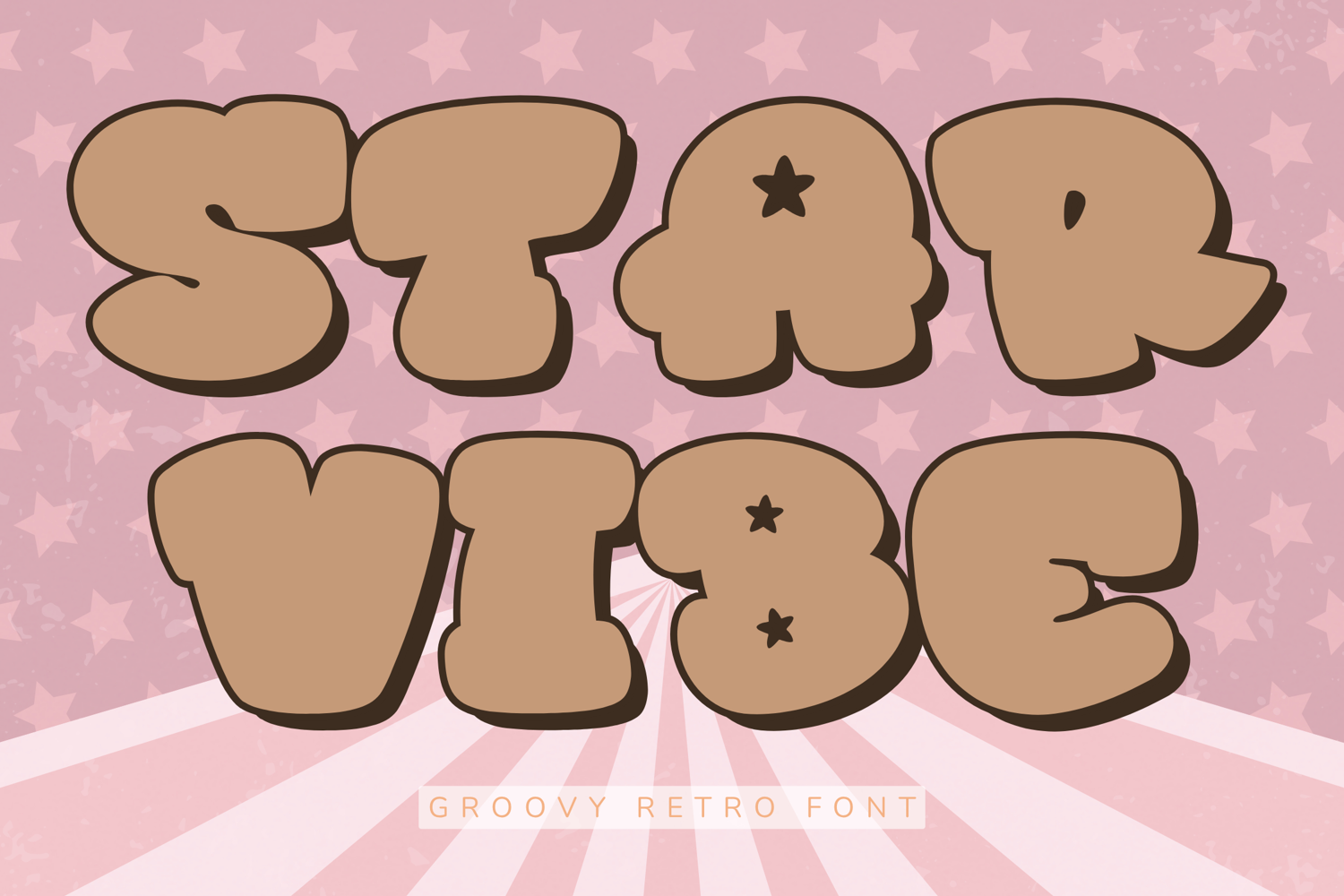
Star Vibe - Groovy Retro Font
Star Vibe – Groovy Retro Font
Star Vibe is a bold groovy retro font inspired by vintage 70s aesthetics, dreamy pop culture, and nostalgic retro posters. Featuring chunky rounded letterforms, playful star details, and a cheerful retro personality, this font instantly adds fun, energy, and personality to any design.
The oversized bubble-like shapes and decorative stars create a playful vintage atmosphere that feels both nostalgic and trendy, making it perfect for modern retro branding, stickers, apparel, social media graphics, and Cricut projects.
Key Features:
Groovy retro style
Chunky bubble letterforms
Fun star decorations
Vintage-inspired design
High readability
Bold display appearance
Numbers & punctuation
Brand Mood:
Fun
Groovy
Retro
Cheerful
Playful
Nostalgic
Trendy
Design Style:
Star Vibe combines bold retro typography with playful celestial-inspired details. The chunky rounded forms and cute star accents create a happy, energetic look that instantly captures attention while maintaining excellent readability.